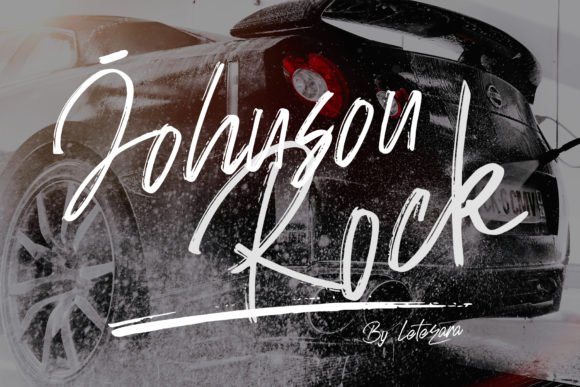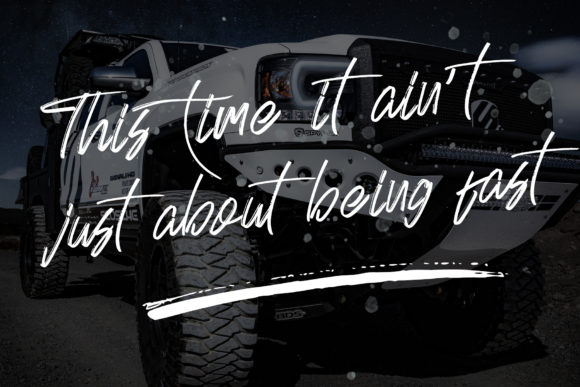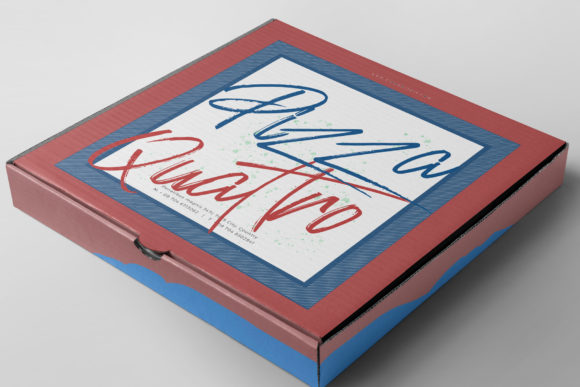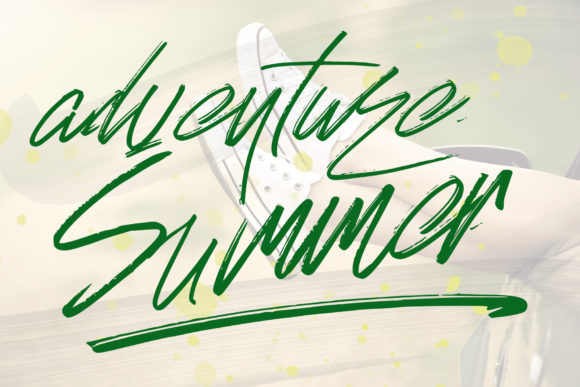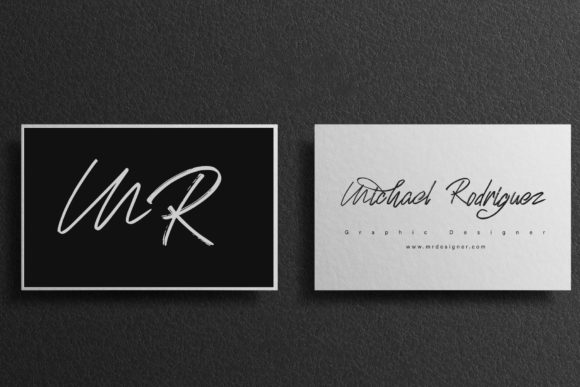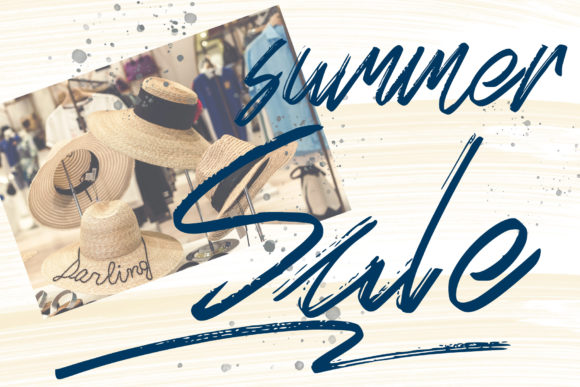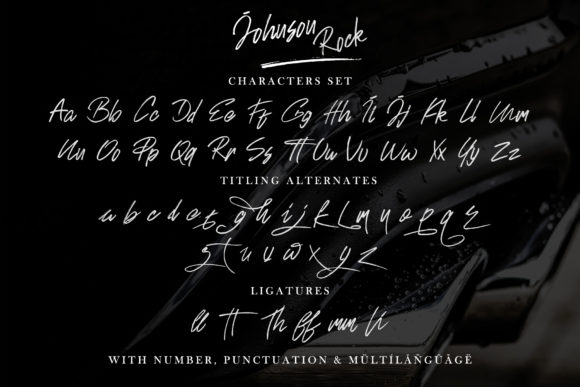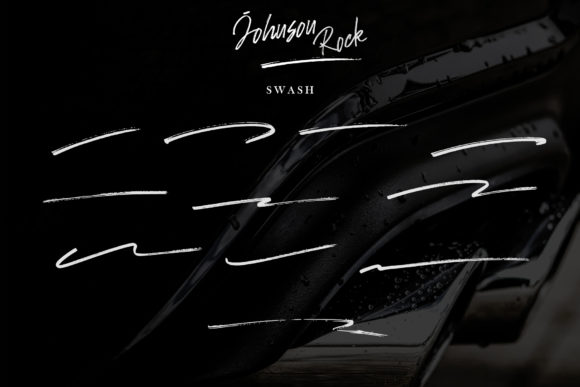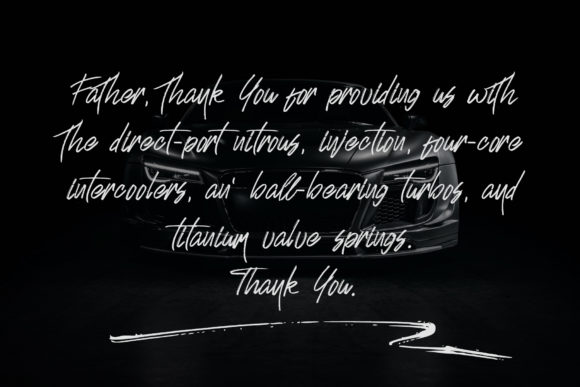
Johnson Rock Font
About Johnson Rock Font
Johnson Rock is cool handwritten font with a personal charm. With quick dry strokes and a signature style, Johnson Rock is a perfectly versatile font!